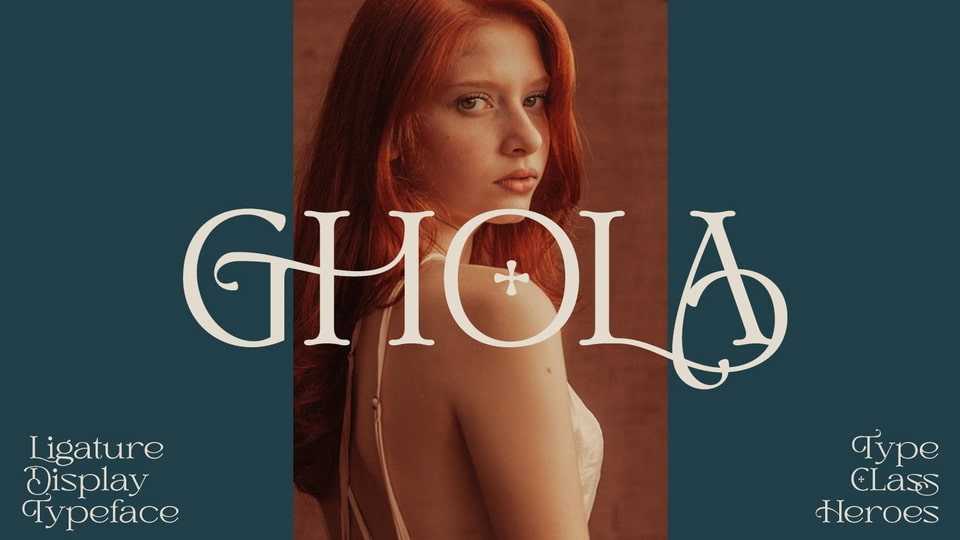
Download Ghola font, a serif typeface masterfully designed to become a stylish and elegant. Ghola font has the potential to bring each of your creative ideas to the highest level.